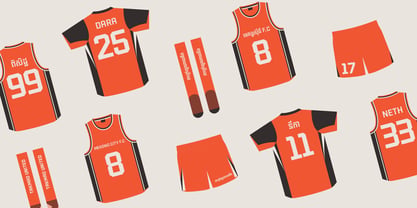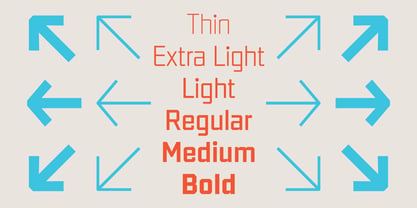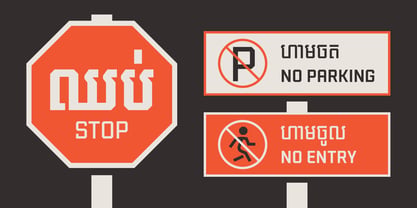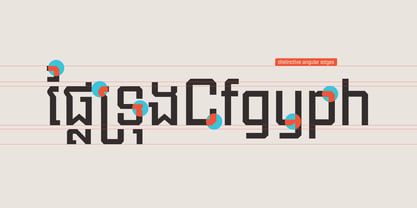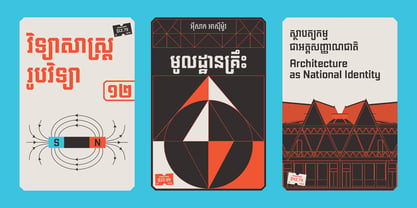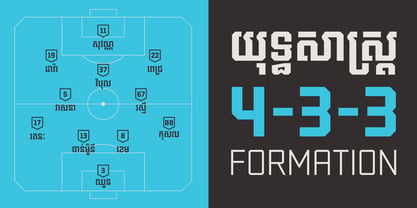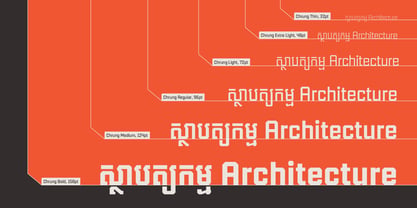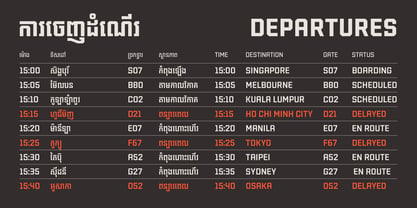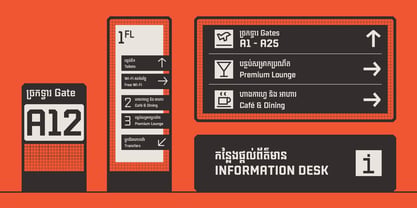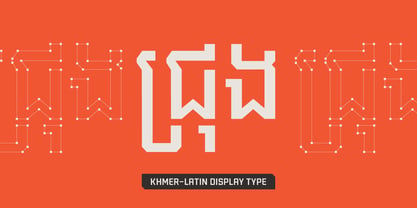
Chrung
The Chrung Font Family was designed by Sovichet Tep and published by Anagata Type. Chrung contains 6 styles and family package options. More about this family
Chrung is a Khmer-Latin display typeface defined by angular construction, where every terminal, joint, and endpoint is cut at the same decisive angle, stripping Khmer letterforms of their traditional curves and loops through loopless construction that reduces each character to its structural skeleton. Chrung's architectural design carries a consistent cut logic across both Khmer and Latin scripts, built from the same stroke construction and weight progression rather than two separate systems forced into alignment, with six weights spanning Thin to Bold that shift the angular cuts from precise and delicate at lighter weights to confident and load-bearing at heavier weights, making this display family ideal for signage, wayfinding, editorial headlines, sports branding, book covers, and digital interfaces while providing full Khmer Unicode shaping and extended Latin support that offers designers a structurally unified approach to bilingual display typography.